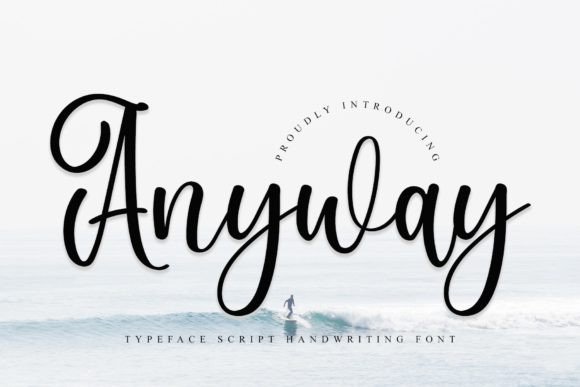
Welcome to the realm of Anyway Font, a script font family that will ignite your creative spark and redefine your design horizons. Step into a world of boundless possibilities, where letters dance with elegance and charm, captivating your audience with every stroke.
Anyway Font is not just a collection of characters; it's an artistic expression that breathes life into your projects. With its meticulously crafted curves and enchanting flow, Anyway Font transcends the ordinary, transforming your designs into captivating masterpieces.
Immerse yourself in the beauty of Anyway Font's script style, a testament to timeless elegance. Its graceful lines and delicate details evoke a sense of nostalgia, while its modern twist adds a touch of contemporary flair. This font family is a harmonious blend of classic and current, ensuring your designs stand out in a sea of mediocrity.
With Anyway Font, you hold the key to unlock a world of creative opportunities. Whether you're crafting social media graphics, designing eye-catching logos, or creating stunning invitations, this font family is your ultimate companion. Its versatility knows no bounds, allowing you to effortlessly elevate your projects and leave a lasting impression.
But what truly sets Anyway Font apart is its emotional resonance. Its soft, inviting curves and playful personality exude a sense of warmth and approachability, drawing your audience into your designs. This font family speaks to the heart, creating an emotional connection that transcends words.
Join the creative revolution and embrace the magic of Anyway Font. Let your imagination soar as you explore the endless possibilities it offers. Discover the joy of creating designs that captivate, enchant, and leave an indelible mark on your audience.